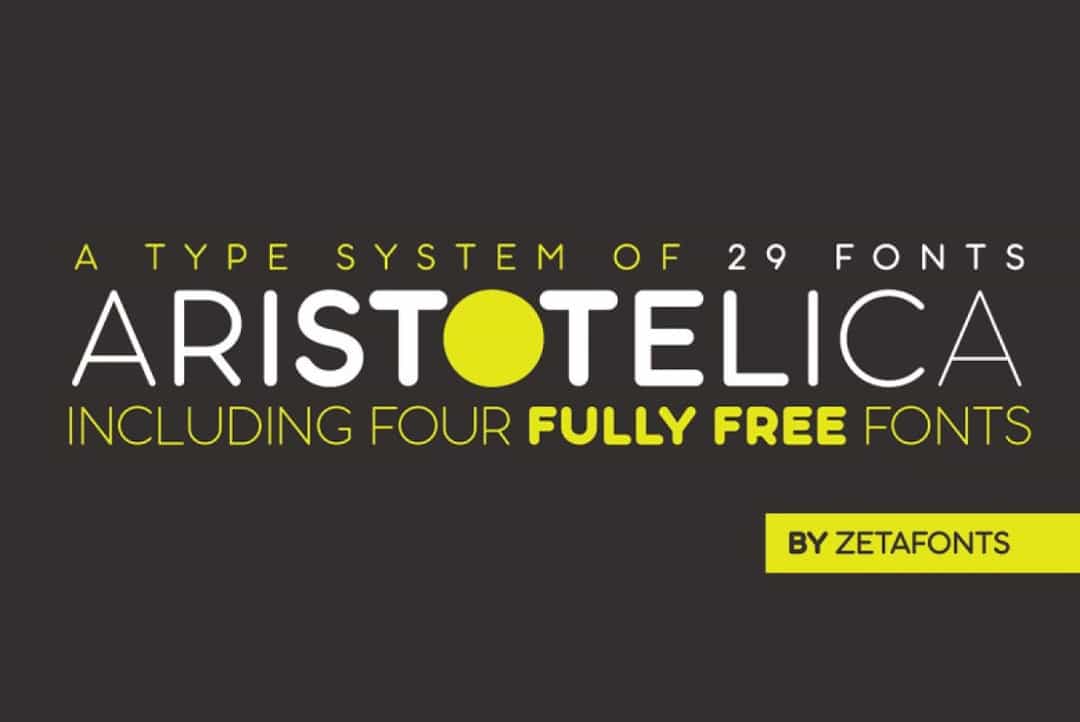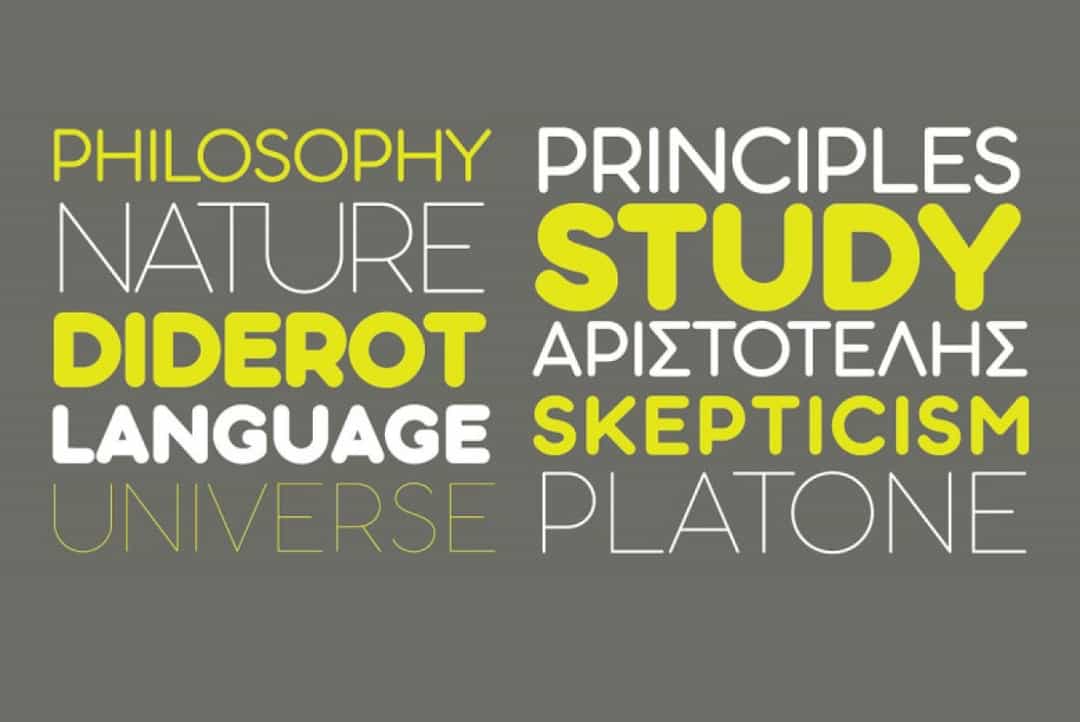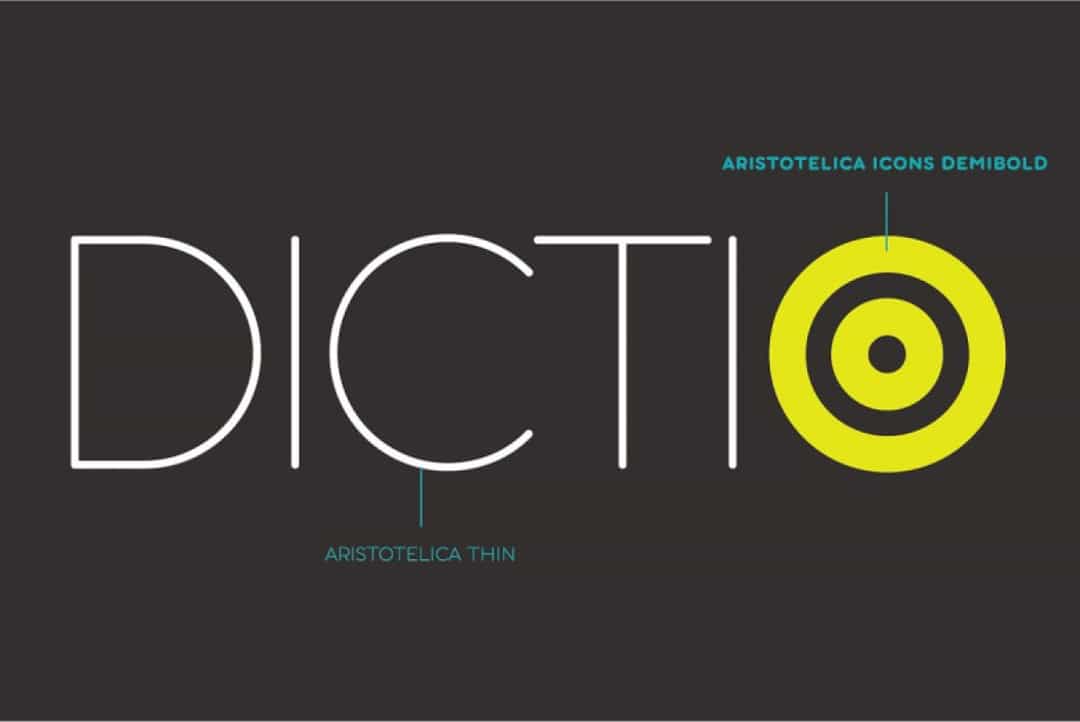
Aristotelica is a sans serif rounded geometric type family designed by Cosimo Lorenzo Pancini and Andrea Tartarelli who developed the original philosophy of one of the classic and best-selling Zetafonts typefaces, Arista by Francesco Canovaro. Originally, it was designed as a case of moderation and simplicity; Aristotelica is typography tribute to the simple beauty of circles.